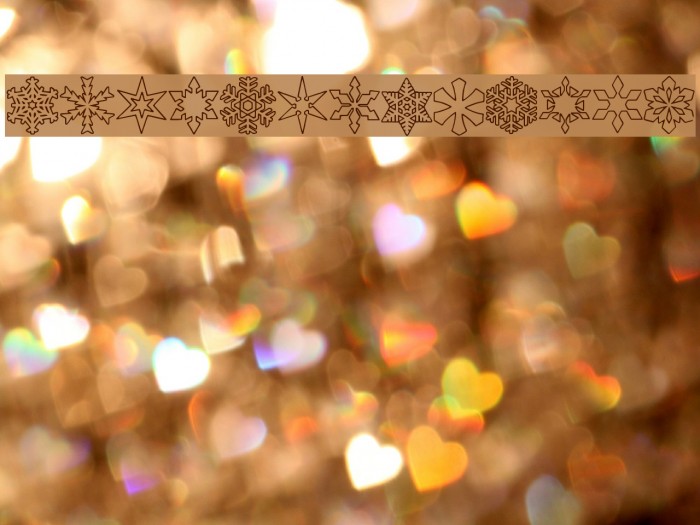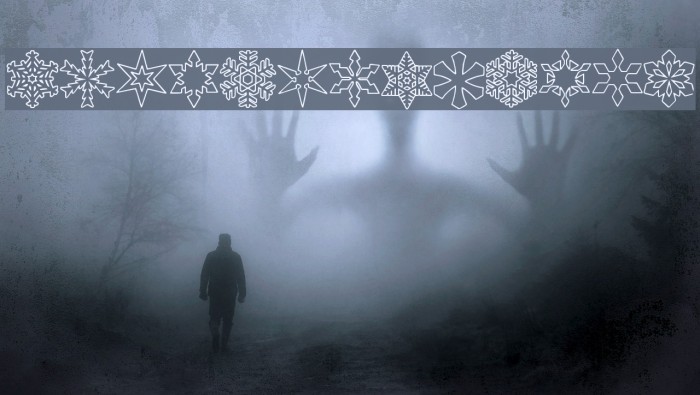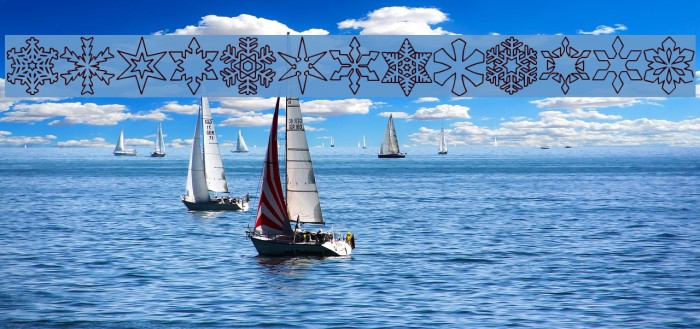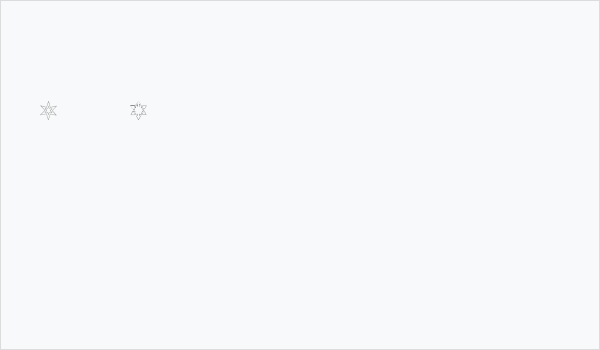
ryp_sflake3 Font
ryp_sflake3 Description
A decorative font composed entirely of unique snowflake and star shapes, each character represented by a different intricate outline design, giving a festive and ornamental appearance.
| Overall Style | Decorative, Festive |
| Use Case | Borders, Decorative elements, Themed headlines |
| Proposed Projects | Holiday cards, winter event invitations, festive borders, decorative headlines, seasonal crafts. |